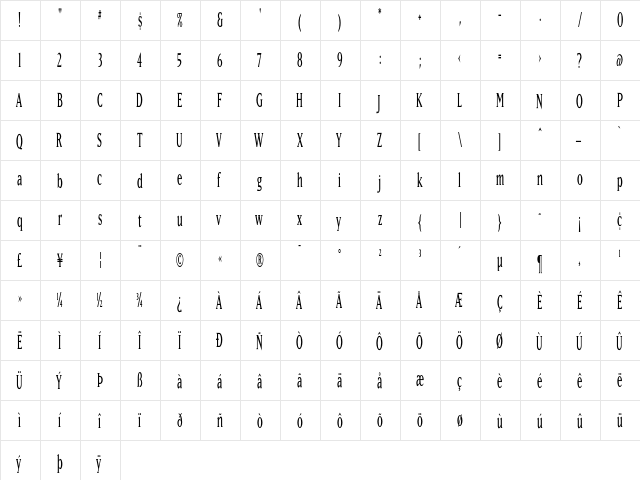
MatrixNarrowLining Regular Font Preview
MatrixNarrowLining Regular
Design Context for MatrixNarrowLining Typeface
MatrixNarrowLining offers clean, dependable letterforms without strong stylistic allegiance, making it a practical choice for designers who need flexibility. Its narrow stance lets it pack a punch even in space-constrained designs.
Pro Tip: Use MatrixNarrowLining in both headline and body roles to test its range before committing to a single application.